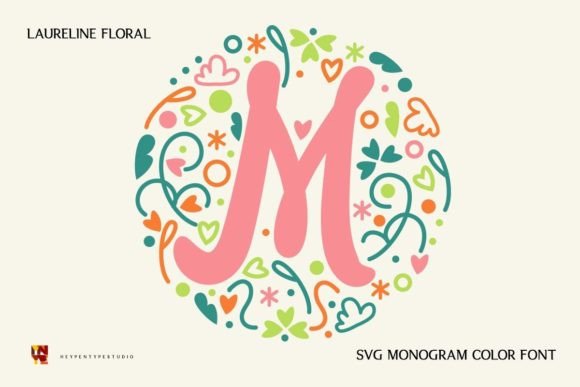
Are you looking for a font that will take your crafting projects to the next level? Look no further than Laureline Floral Monogram Font! Created by heypentype, this colorful font is the perfect choice for those seeking the best font for foil on Cricut.
Laureline Floral Monogram is a stunningly beautiful font that features cute and soft floral monogram designs. This fancy color font is perfect for all your decorative design projects and crafting needs. With different design patterns for each letter, this font allows you to create colorful and unique artwork that will truly stand out.
One of the best things about Laureline Floral Monogram is its rare and unique brush script monogram style. This type of font is not common, which makes it an excellent choice for those looking to elevate their design game. Whether you're designing a logo or creating a poster, this color font is sure to impress.
In conclusion, if you're looking for a beautiful and eye-catching font that will make your designs stand out, then look no further than Laureline Floral Monogram Font. Its unique design, compatibility with popular design software, and rare brush script monogram style make it the perfect choice for all your crafting and decorative design needs.